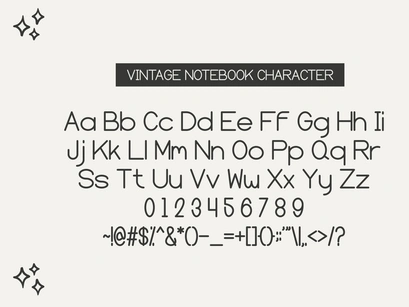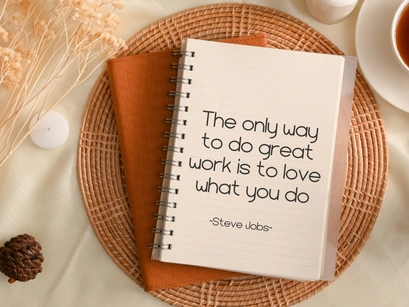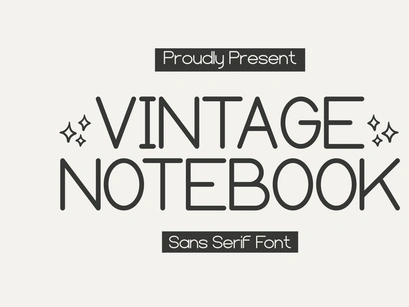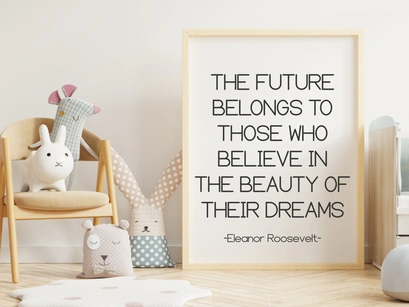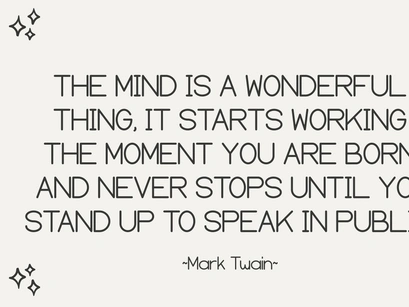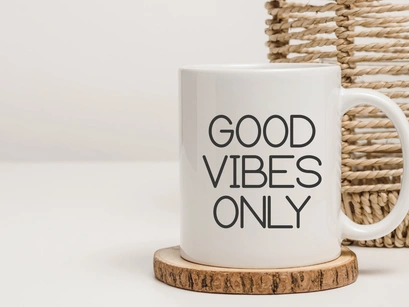
Vintage Notebook - Sans Serif Font
Vintage Notebook
Vintage Notebook is a minimalist and clean sans serif font that exudes timeless elegance. Its simple yet sophisticated design is perfect for adding a touch of vintage charm to any project. Ideal for creating clean and modern designs, this font is sure to make a lasting impression.